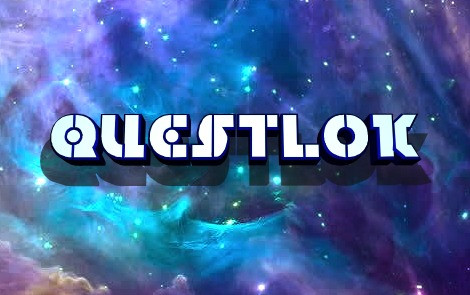
Questlok Font
Questlok Font, this bundle features strong, confident and powerful typefaces designed to work great with sports logos, club branding, apparel applications, labels and more.